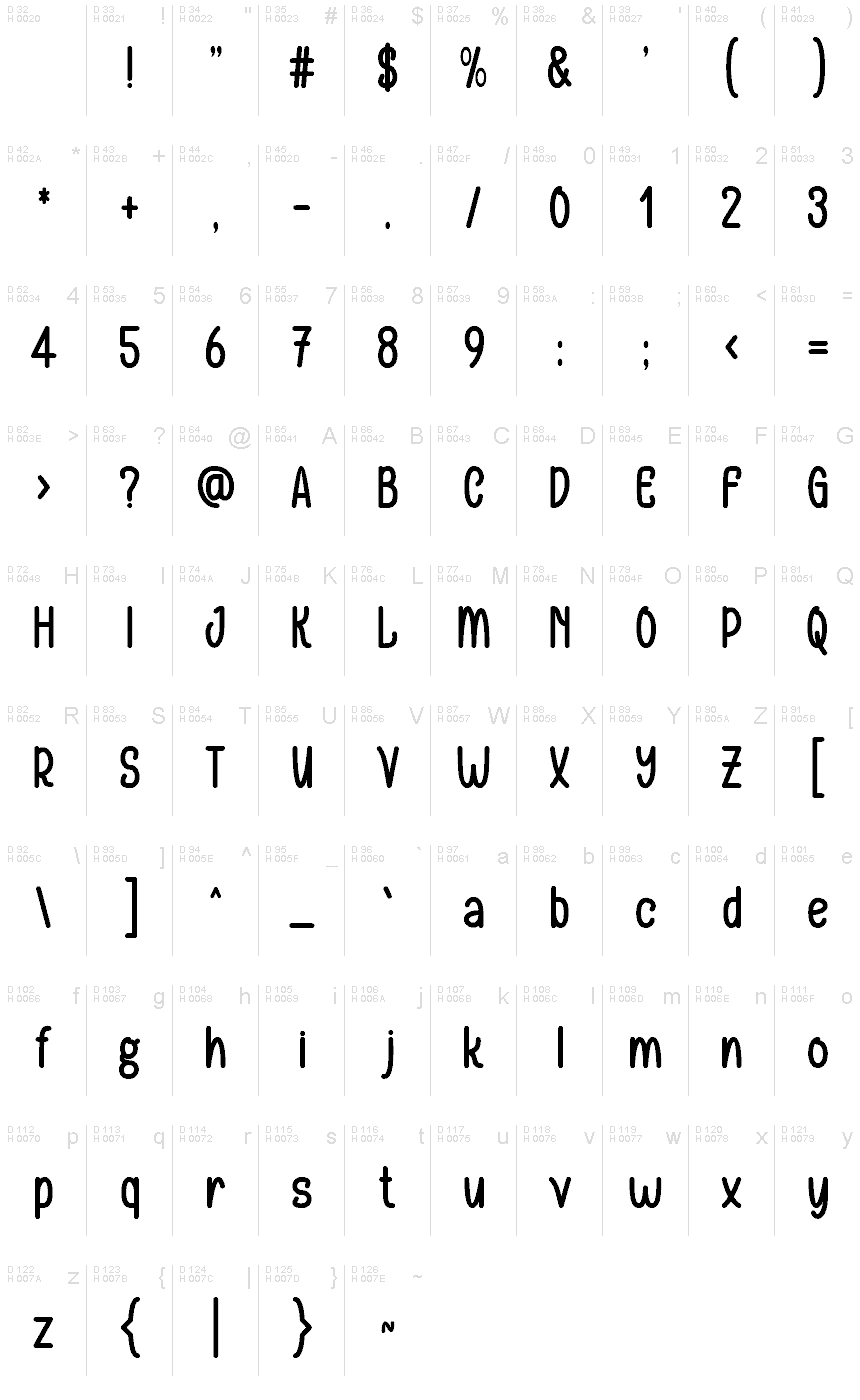
HAPPYMASS
Happymass font by Gilang Ternadho is a free handwritten font that perfectly captures a subtle retro influence. Curved letters with an organic feel come together in a stylish body condensed to deliver elegance and charm. Alongside its smooth finish, the font enjoys a casual vibe, one delivered by its whimsical appearance.